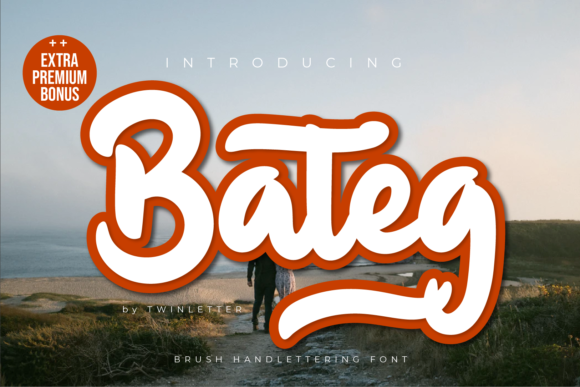
Ignite your creativity with Bateg, a script font that exudes boldness and fluidity. Inspired by the dynamic energy of sports apparel, this font is a game-changer for designers seeking to make a statement.
Bateg's thick, flowing letters command attention, embodying the essence of athleticism and determination. Its assertive style is a perfect match for sports-themed designs, evoking a sense of power and agility. Unleash your imagination and create designs that capture the essence of competition and triumph.
With Bateg as your design partner, you can:
* Elevate your sports apparel designs to new heights, creating a visual impact that leaves a lasting impression.
* Bring a touch of individuality to your branding, making your products stand out from the crowd.
* Craft eye-catching headlines, logos, and social media graphics that resonate with your target audience.
* Add a touch of dynamism to your marketing materials, ensuring that your message is delivered with impact.
Bateg is more than just a font; it's a gateway to a world of creative possibilities. Embrace its energy and let your designs soar.